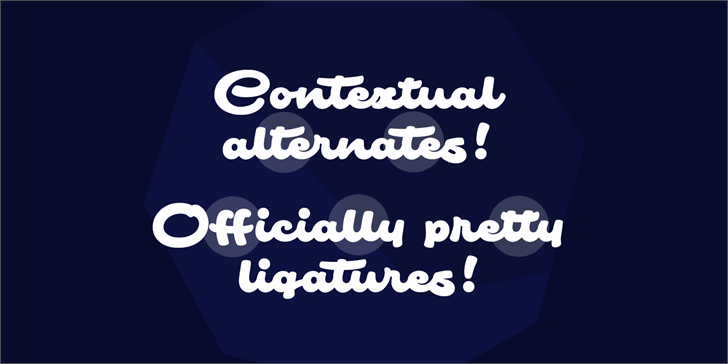
Free Safir Script Font
Introducing you to the absolutely beautiful free safir script font. This font file was found from the amazing source called Font Space. Amaze your fellow designers and create stunning designs with this fancy font.